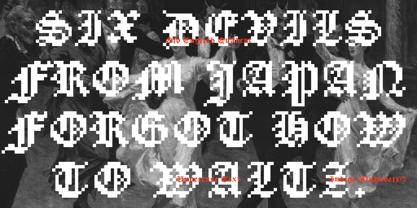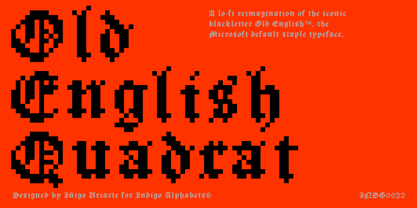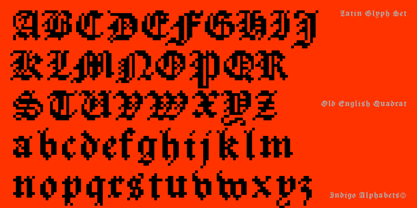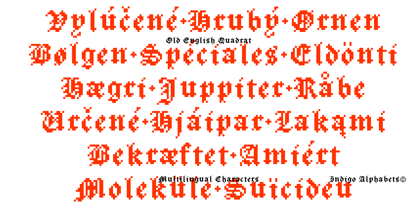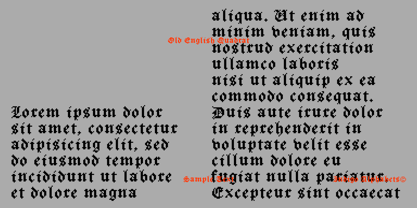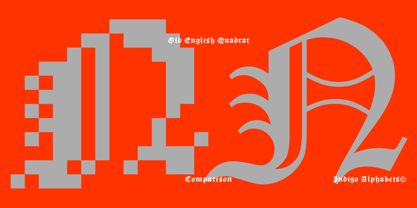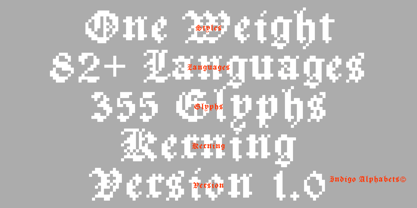
Old English Quadrat
by Iñigo Uriarte
Old English Quadrat: A bold clash of medieval tradition and digital nostalgia. This typeface reimagines the ornate flourishes of classic Old English lettering through a strict pixel grid, giving it a sharp, blocky rhythm that feels both historic and futuristic. Its gothic presence is preserved, but stripped down to raw pixels, making it perfect for projects that want to channel retro gaming culture, underground aesthetics, or a modern twist on medieval drama.
Indigo Alphabets™ is an independent type foundry run by Berlin-based designer Iñigo Uriarte. This project aspires to fill a gap in the typographic panorama, as well as to be a platform for the designer's explorative impulse. With a focus on futuristic, blackletter and bitmap typefaces, Indigo Alphabets™ is committed to the highest standard for quality in its work.Happy designing